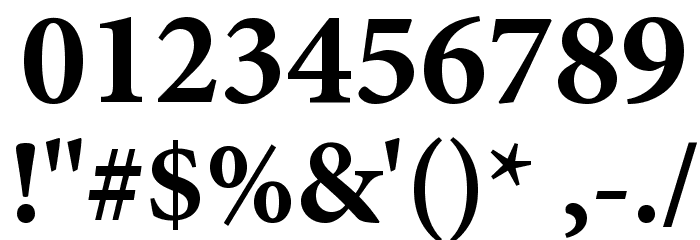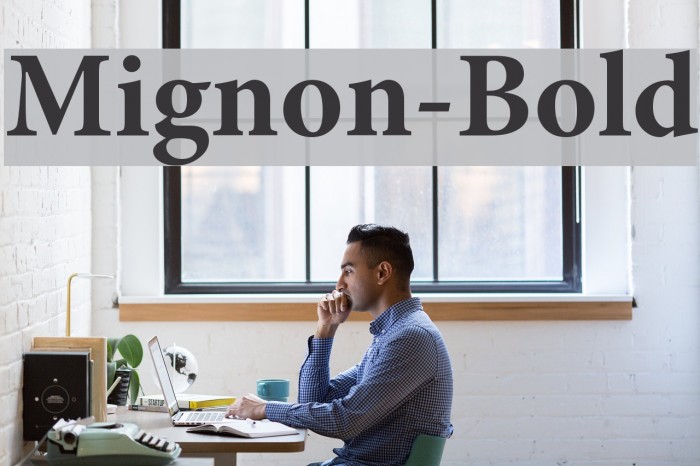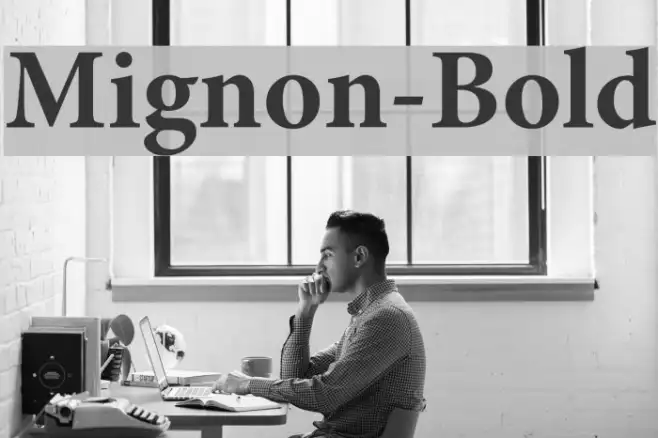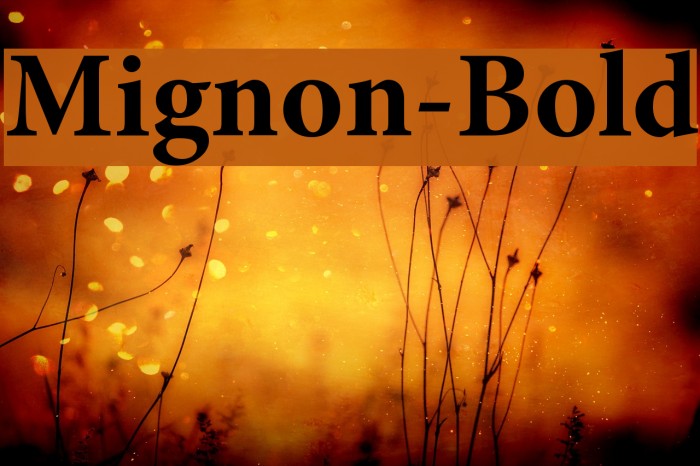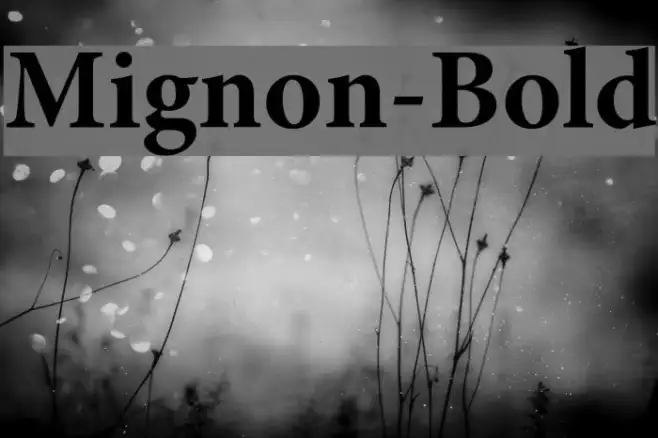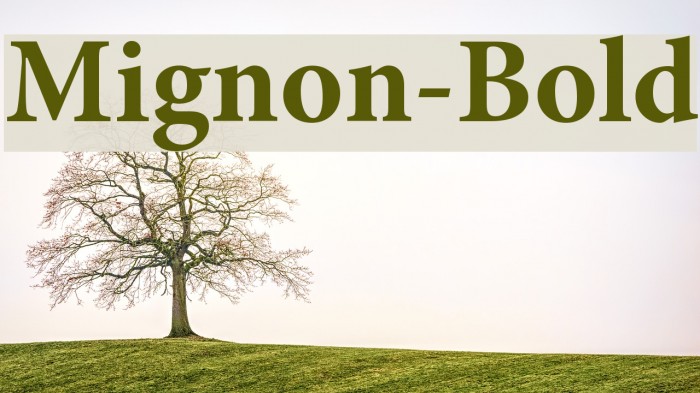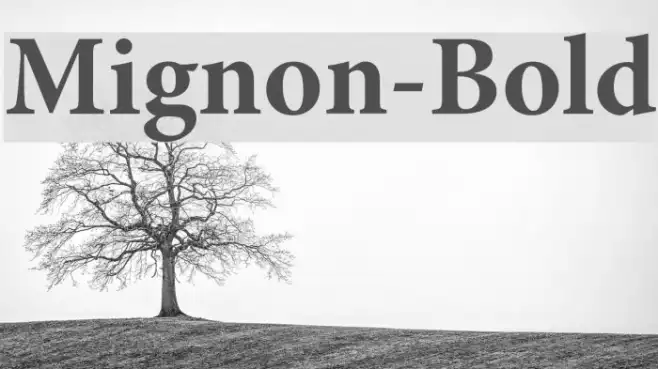
Mignon-Bold Font
Mignon-Bold Description
This font exhibits a classic serif style with a bold weight, characterized by strong, pronounced strokes and elegant curves. The uppercase letters are well-proportioned with a traditional feel, while the lowercase letters maintain a consistent rhythm and balance. The numerals are clear and legible, making them suitable for various applications. Special characters are distinct and maintain the overall aesthetic of the font. The design is versatile, offering a timeless appeal that can enhance both modern and traditional projects.
| Overall Style | Classic |
| Use Case | Headlines, Body text, Logos |
| Proposed Projects | Ideal for book covers, editorial design, branding, and formal invitations. |